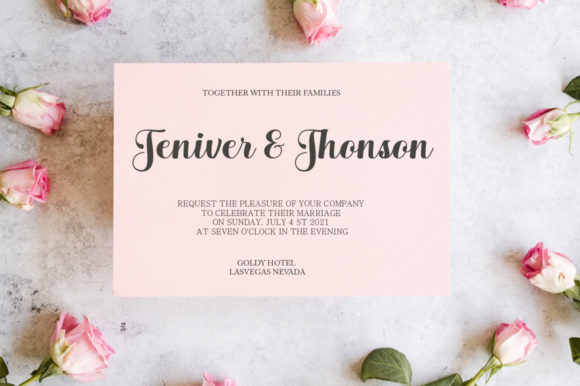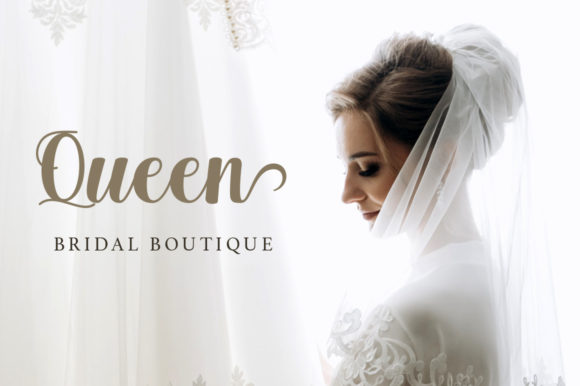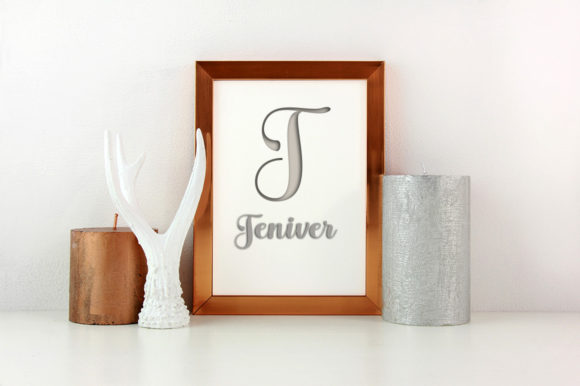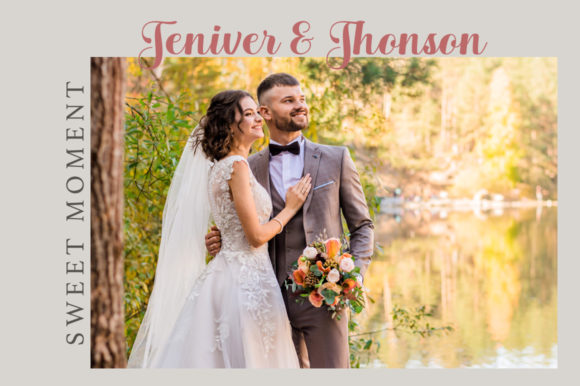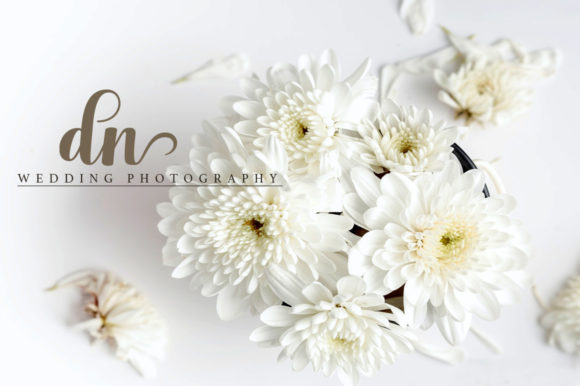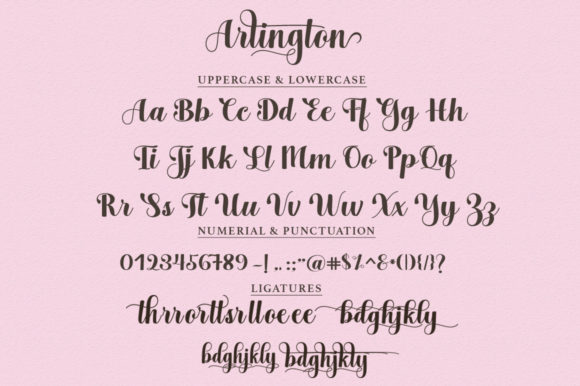
The Perfect Font for Your Next Design Project
Have you ever been working on a design project, pouring your heart and soul into it, only to feel like something’s missing? You’ve got the perfect idea, the perfect color palette, but the font just isn’t quite right? That’s where the Arlington Script Font comes in – a flowing handwritten font that adds an elegant touch to any design.
This beautiful font is perfect for designers who want to create truly unique and timeless designs. With its incredibly distinct style, the Arlington Script Font is sure to elevate your projects and leave a lasting impression. Plus, its PUA encoding means you can access all of the glyphs and swashes with ease, making it a valuable tool for any designer looking to add a little extra flair to their work.
Arlington Script Font Key Features
- Unique Characteristics: Elegant, cursive script with a vintage touch, ideal for creative and artistic projects
Arlington Script Font Review
I recently had the chance to work with the Arlington Script Font, and overall, I’m quite impressed with its capabilities. ✨ The first thing that caught my attention was its beautiful, elegant script style. It’s perfect for creating a sophisticated and high-end look for branding materials, invitations, or any other project where you want to convey a sense of luxury and refinement.
- The font’s versatility is a major plus, as it can be used in a variety of contexts, from formal to casual, making it a great addition to any designer’s toolkit.
- Arlington Script Font is also highly customizable, allowing you to adjust its size, color, and spacing to suit your specific design needs.
- The font is also highly legible, even at smaller font sizes, making it perfect for body text or headings.
However, there are a few limitations to be aware of ⚠️:
- The font may not be suitable for projects where a bold, eye-catching font is required, as its script style can come across as too elegant or refined.
Overall, I’m very pleased with the Arlington Script Font and would highly recommend it to designers looking to add a touch of elegance to their projects. With a little practice and patience, you can achieve stunning results with this versatile and highly customizable font.
Tips for Getting the Most Out of Arlington Script
For a professional look, pair Arlington Script with a clean sans-serif font. Experiment with different font sizes and styles to create visual interest. Use the font for titles, headings, and short paragraphs to make your content stand out.
Arlington Script is ideal for:
- Special event invitations and announcements
Arlington Script Font Alternatives
Playfair Display is an elegant and luxurious script font, ideal for high-end branding, invitations, and special occasions. It features intricate details and a touch of sophistication.
Compared to Arlington Script Font, Playfair Display is more ornate and luxurious, making it suitable for high-end designs. Arlington Script Font is more versatile and can be used in a variety of contexts.
Great Vibes is a modern and elegant script font, perfect for creating a sense of sophistication and refinement. It features a flowing and organic feel, making it ideal for branding, packaging, and advertising.
Compared to Arlington Script Font, Great Vibes is more modern and has a more fluid feel. Arlington Script Font is more traditional and can be used in a wider range of contexts.